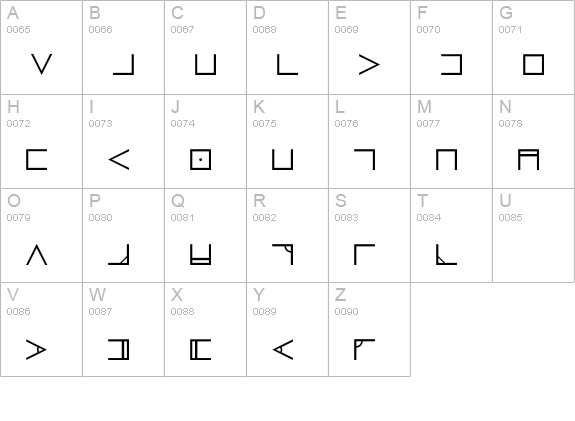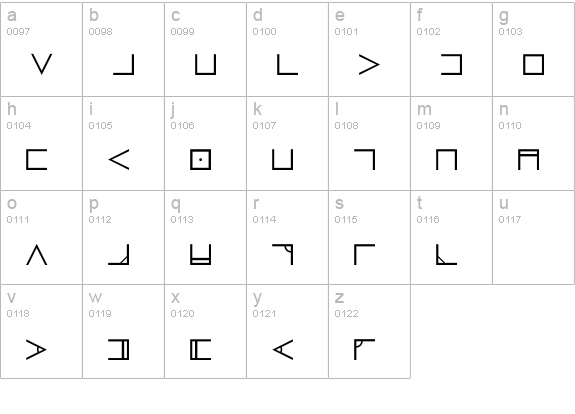
Nugsoth Font Details
Nugsoth font is a modern and stylish typeface that exudes elegance and sophistication. With its sleek lines and sharp edges, this font is perfect for adding a touch of class to any design project. Whether you're creating a logo, designing a website, or crafting a poster, Nugsoth font will elevate your work to the next level. What sets Nugsoth font apart is its versatility. It can be used for a wide range of applications, from branding to editorial design. Its clean and crisp letterforms make it easy to read, while its unique style adds a touch of personality to any project. And the best part? Nugsoth font is completely free to download! That's right, you can get your hands on this stunning font without spending a dime. Simply head over to FontsMarket.com and start using Nugsoth font in your designs today. Don't miss out on this amazing opportunity to enhance your creative projects with Nugsoth font.